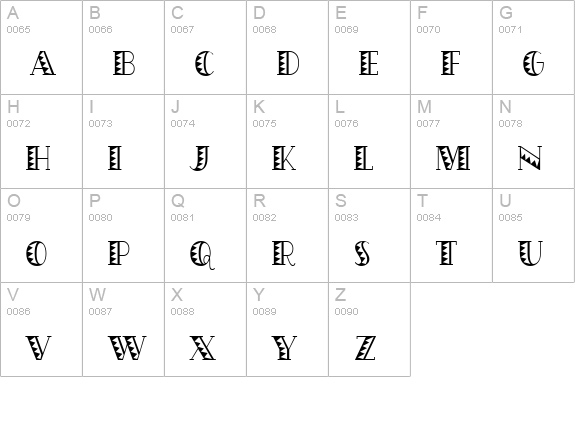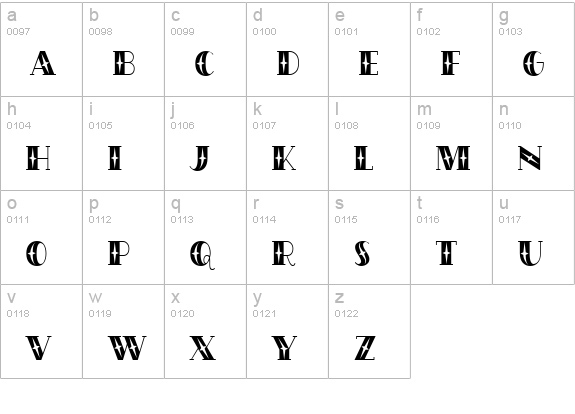
Eureka font is a striking and modern typeface that is sure to make your designs stand out. With its clean lines and unique style, Eureka is perfect for a variety of projects, from branding to editorial design. This versatile font is free to use and can be downloaded at FontsMarket.com. Add a touch of sophistication and elegance to your work with Eureka font today!